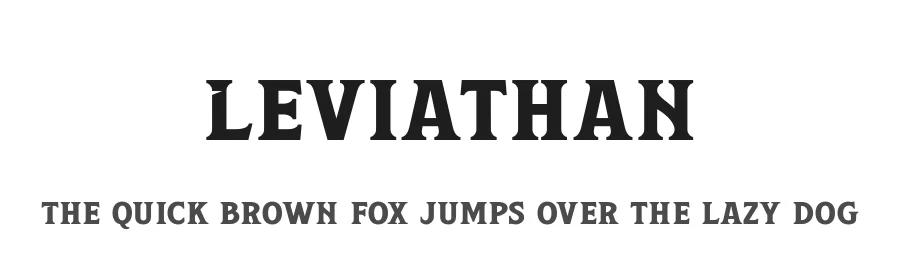
About Zarla Font
| Designer | Widiyanti & Suci Anita |
Zarla Font is a versatile serif font that works for both headings and body text. Pair it with a contrasting sans-serif or slab serif font to add visual interest and a clear distinction between titles and body copy.
Zarla Font
by RaisProject